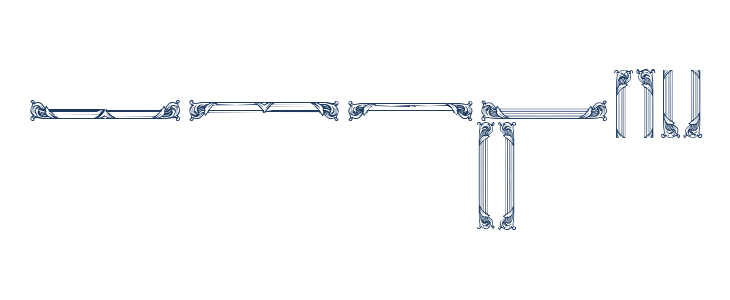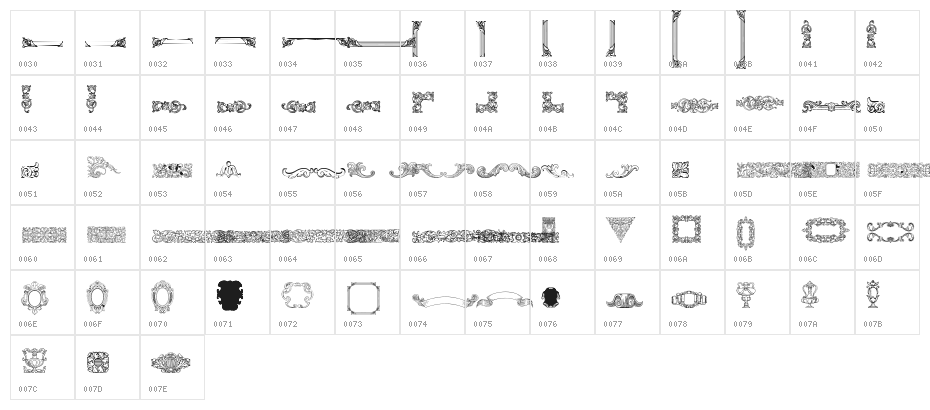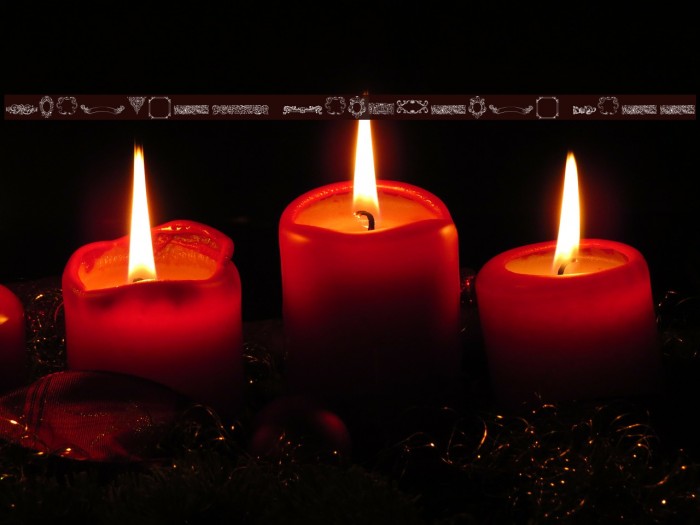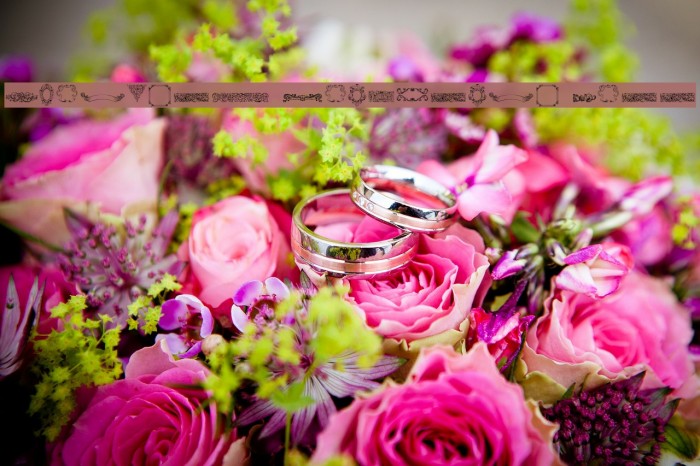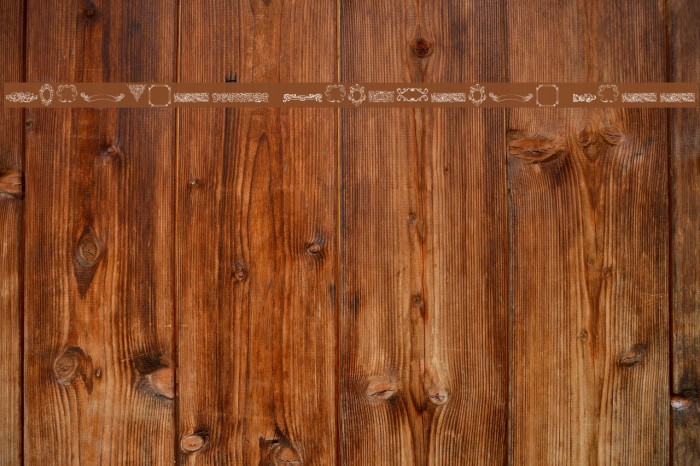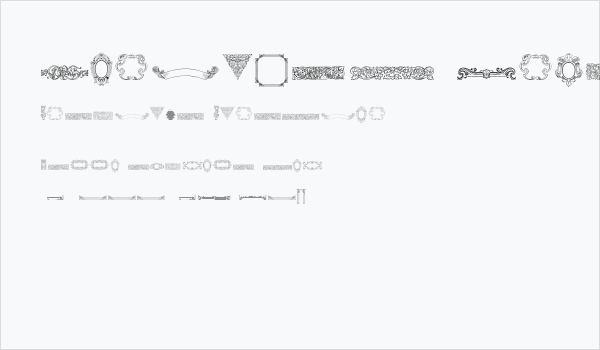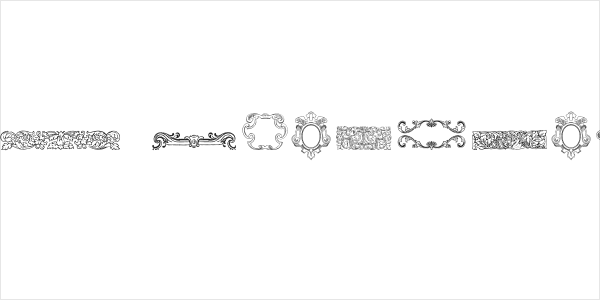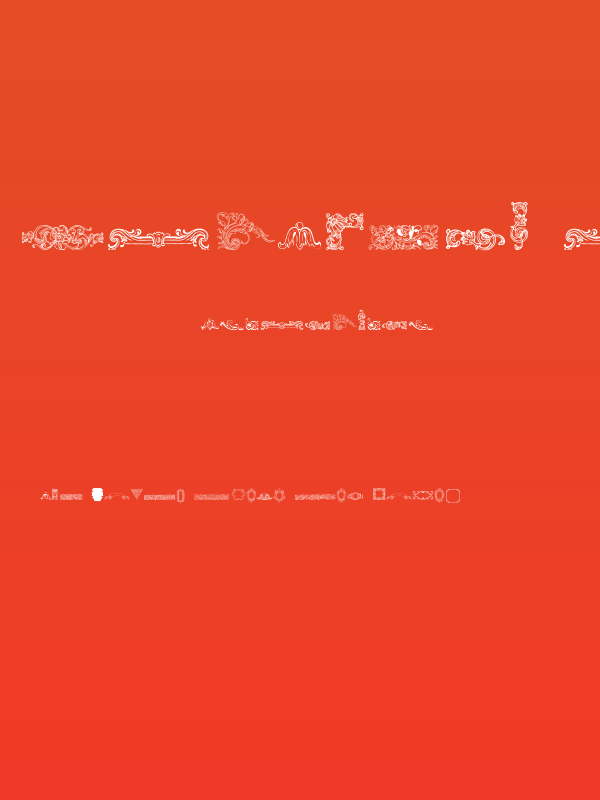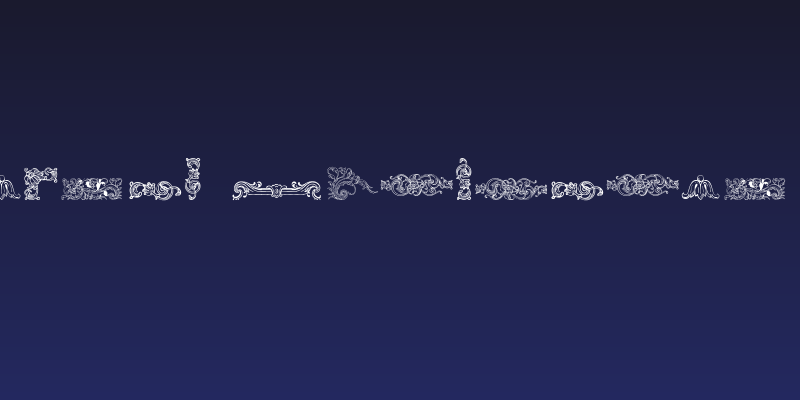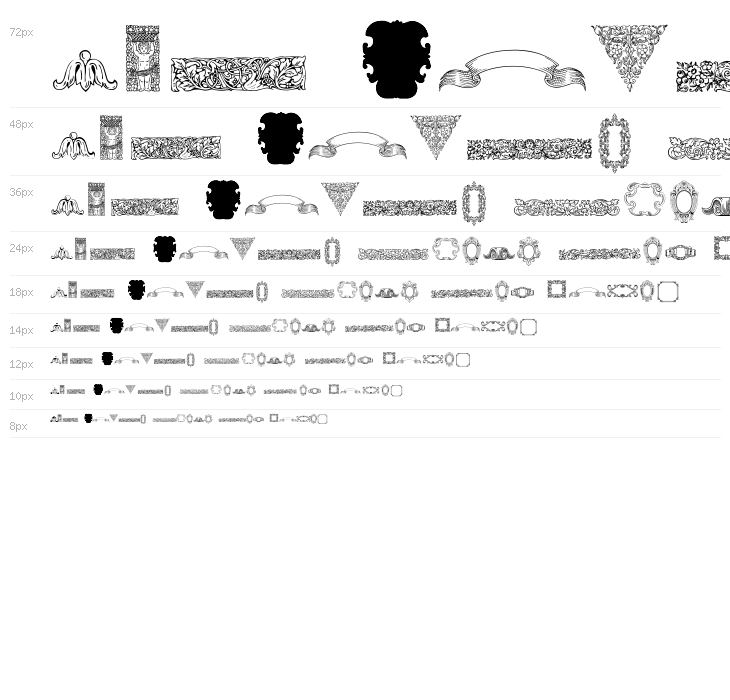
Mortised Ornaments Free Font
Mortised Ornaments Free Description
This set of ornamental designs features intricate and elaborate patterns, reminiscent of classic and vintage styles. The designs are highly decorative, with swirling motifs and detailed embellishments that evoke a sense of elegance and sophistication. These ornaments are perfect for adding a touch of grandeur to any project, with their intricate lines and curves creating a visually striking effect. The collection includes a variety of shapes and styles, each with its own unique flair, making it versatile for different design needs.
Overall StyleVintage
Use CaseDecorative elements, Borders, Invitations
Proposed ProjectsIdeal for wedding invitations, luxury branding, vintage-themed projects, and decorative borders.